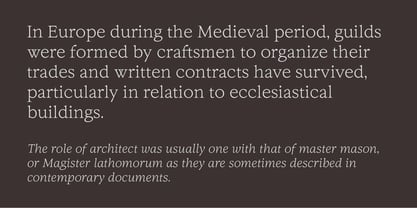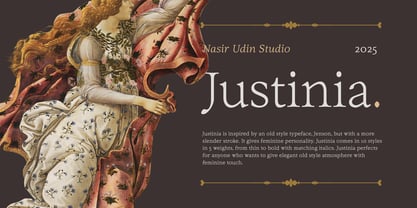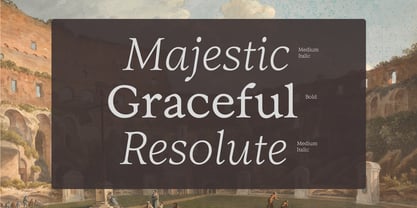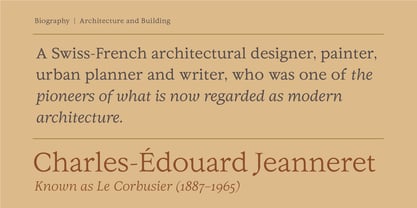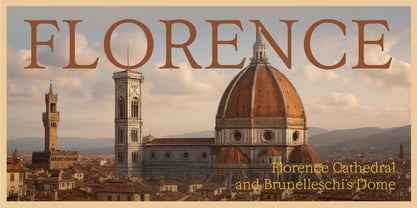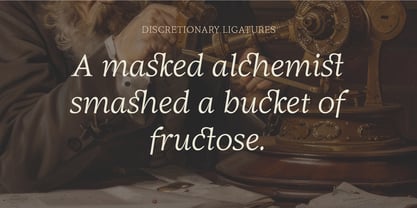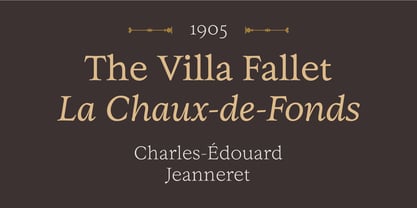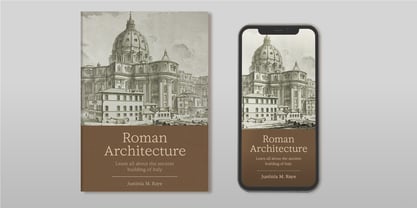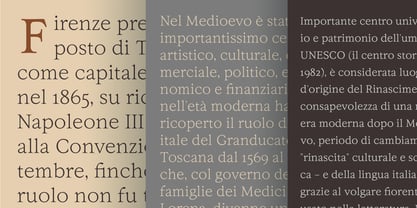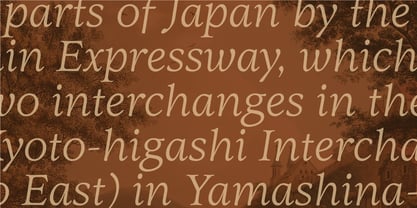
Justinia
by Nasir Udin
The Justinia Font Family was designed by Nasir Udin, Haidi Shabrina and published by Nasir Udin. Justinia contains 10 styles and family package options.
Justinia is inspired by an old style typeface, Jenson, but with a more slender stroke gives it a feminine personality. It also has higher x-height, and horizontal crossbar "e". Justinia comes with 10 styles in 5 weights, from thin to bold with matching italics. Justinia perfects for anyone who wants to give elegant old style atmosphere with feminine touch.
About Nasir Udin
Before he got into type design, he had designed travel posters under the Vectro label. His illustrative style is an impression of similar posters from the mid 20th century. As a designer, he enjoy looking to both the past and the future for inspiration. That's why he love to blend a retro style with a futuristic concept. He started type design on 2016 as his side project, before he take it seriously. You can follow @studio.nasir on Instagram, he loves to capture a lettering on old buildings (Dutch, Chinese, Arabic, blend with the local Javanese).